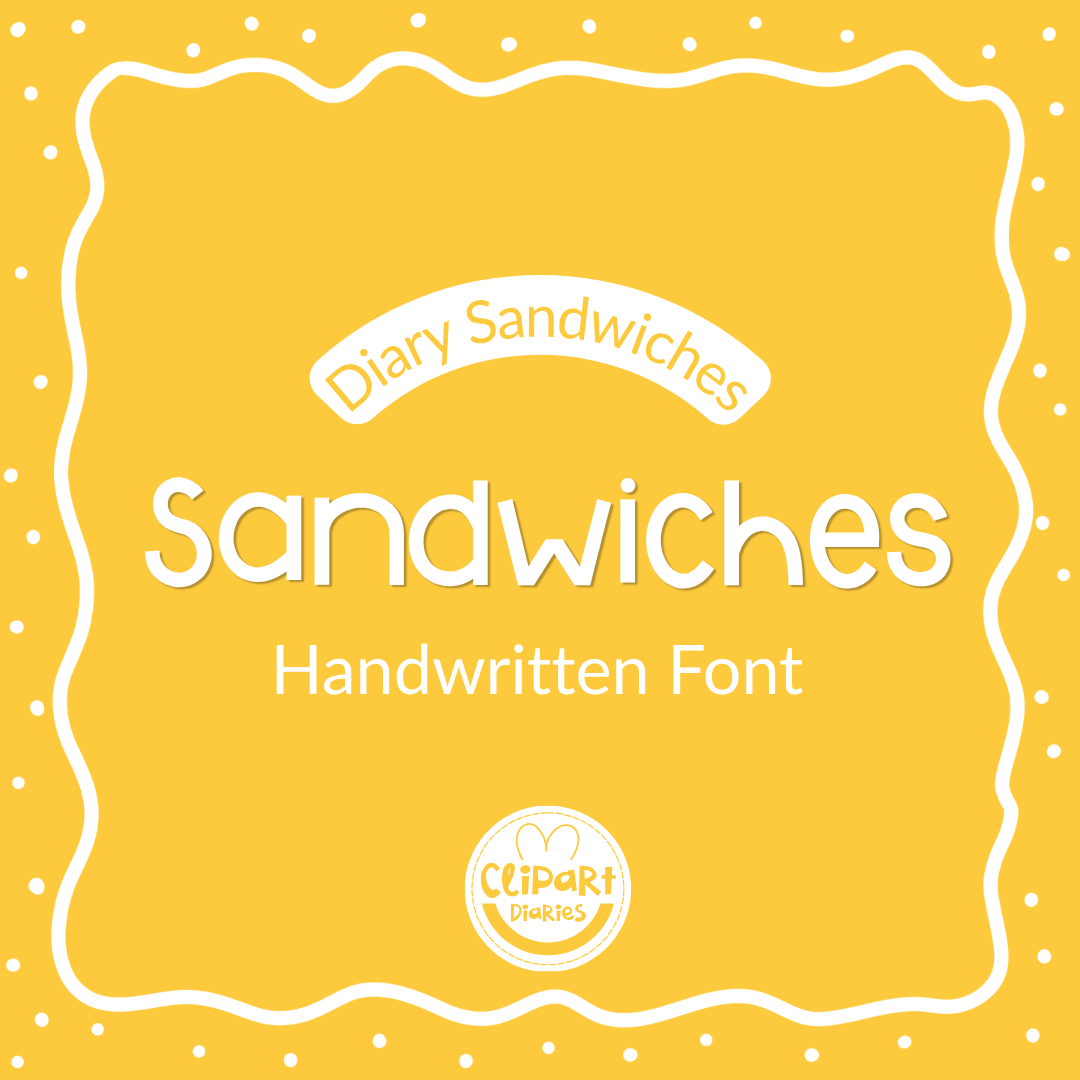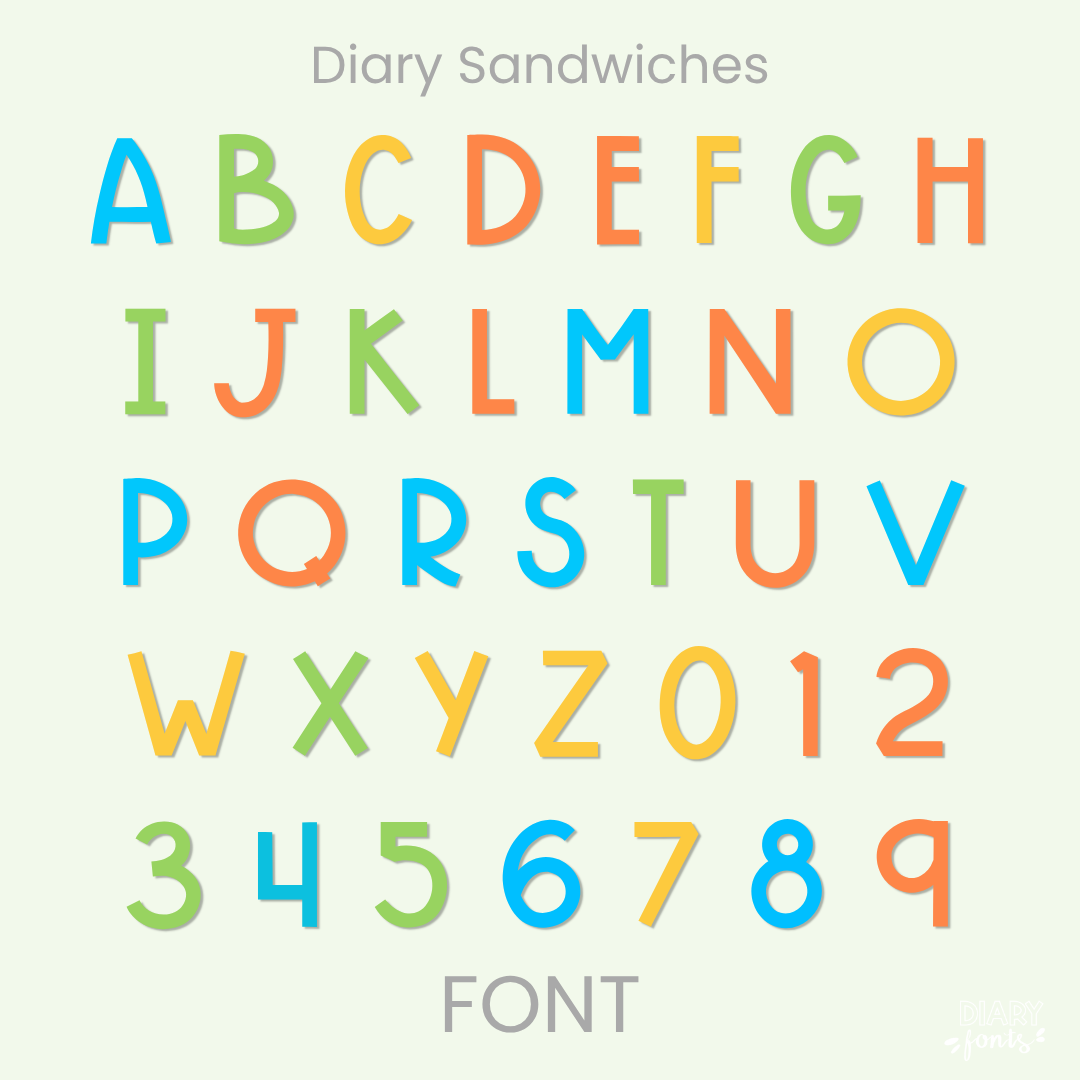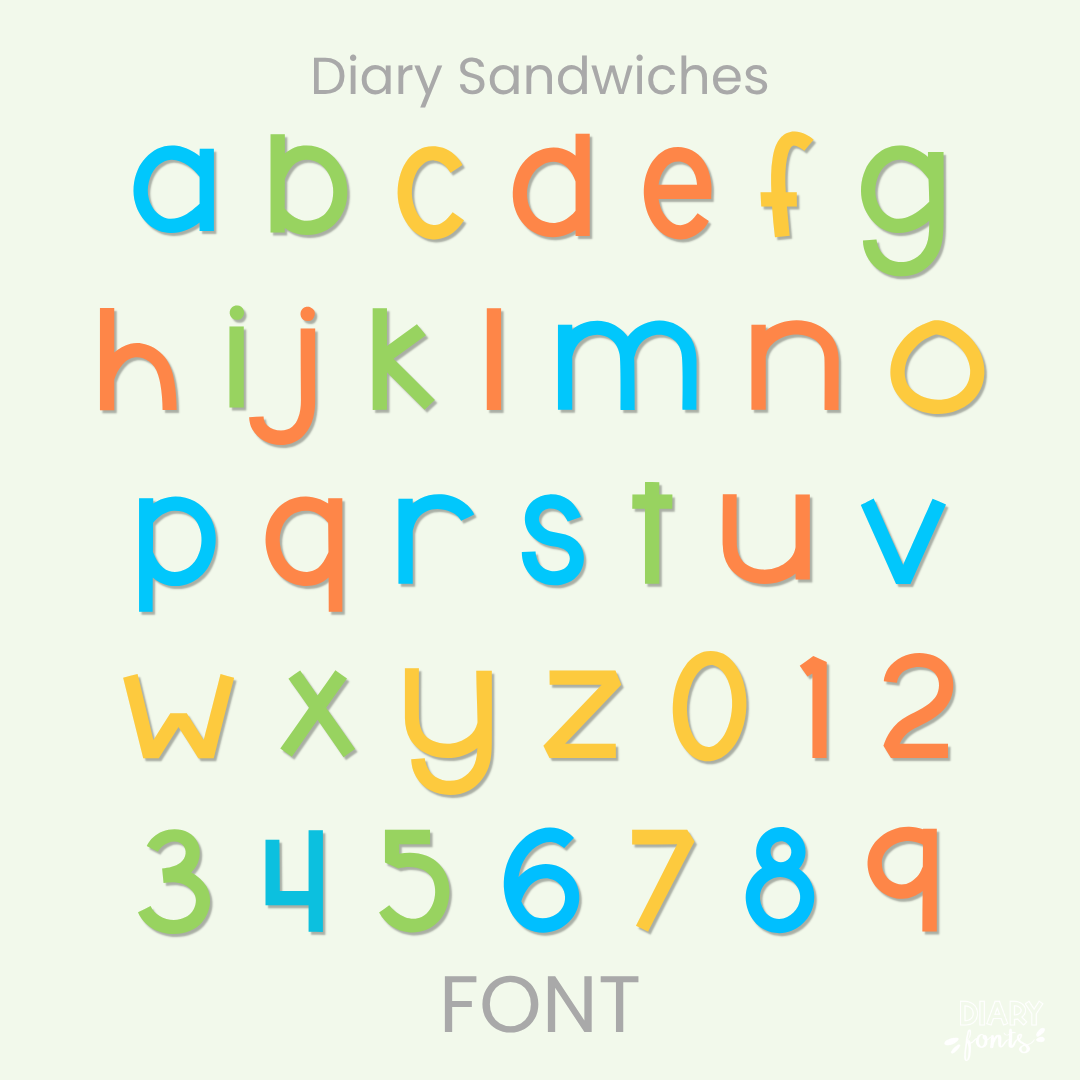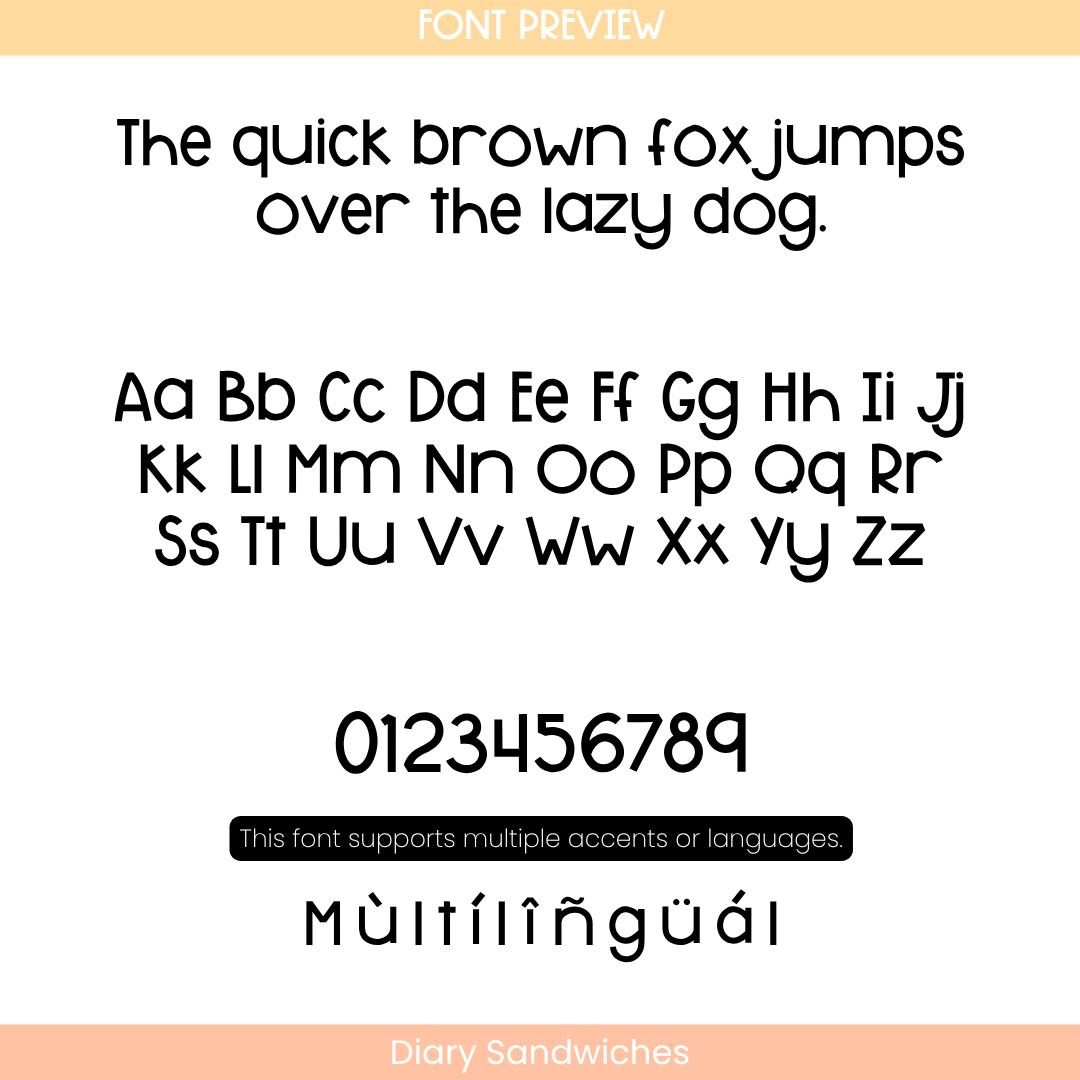
Diary Sandwiches – Neat Handwritten Font
Diary Sandwiches is a perfectly neat, clean-lined handwritten print font that brings a crisp, structured, and totally readable look to your daily classroom resources and slides!
If you are looking for that ultimate everyday staple font that feels like your absolute best teacher handwriting, Diary Sandwiches is going to be your new favorite go-to. It features beautifully uniform line weights, precise geometric lines, and a wide-open structure that makes every single letter look incredibly tidy and easy to read. Standing nice and straight along the baseline with a perfectly upright shape, it gives you that effortless, organic hand-lettered look while keeping your layouts completely organized and clutter-free.
It is an incredible choice for typing out daily reading passages, student worksheets, spelling tests, and morning presentation slides where clear legibility is your top priority. The complete character layout gives you a full set of matching uppercase and lowercase print letters, clean numbers, and multi-accent marks for complete multilingual support. It drops right into Canva, MS Office, or Adobe on your desktop, and pairs beautifully with Procreate and GoodNotes on your iPad. Whether you’re crafting weekly printables for your own sweet classroom or designing fresh new resources for your teacher shop, this clean print font adds a touch of warm, friendly style to your toolkit.